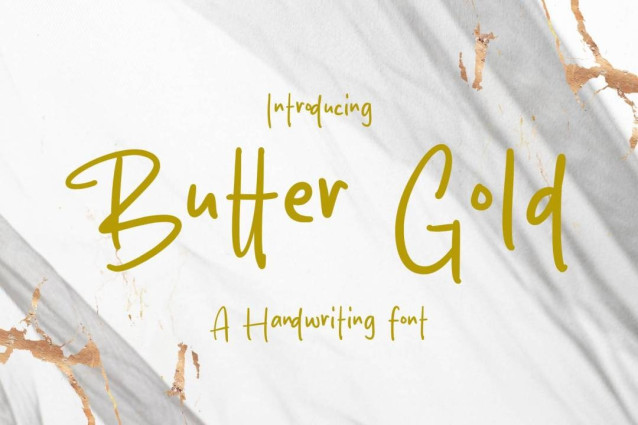
Butter Gold Font
Butter Gold Font is a simple and friendly handwritten font. Its natural and unique style makes it incredibly fitting to a large pool of designs. The only limit is your imagination!